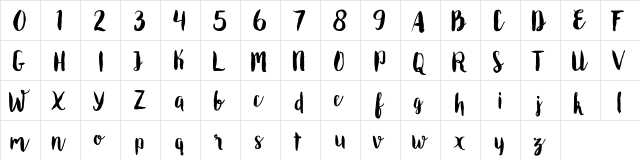
Roomfer Regular
| Foundry | Alit Suarnegara |
| Designer | Alit Suarnegara |
Design Context for Roomfer Typeface
Roomfer is a composed and adaptable typeface that performs quietly and consistently across a wide range of design contexts.